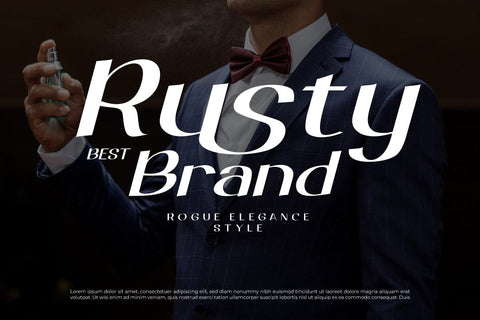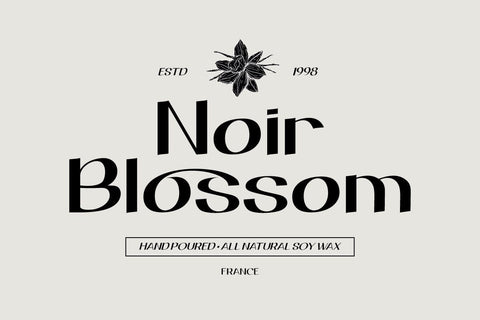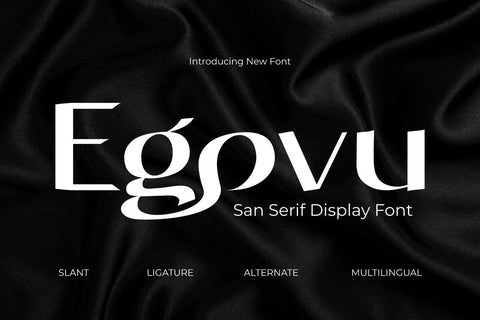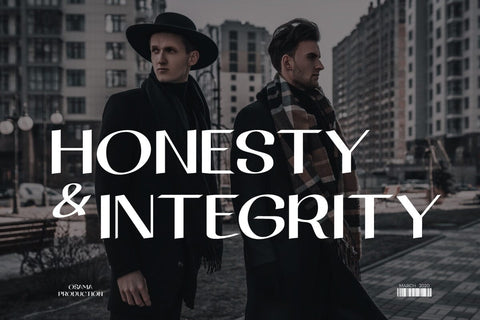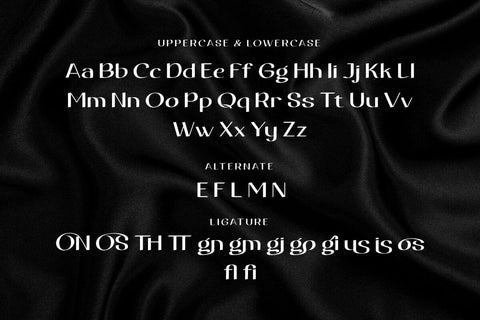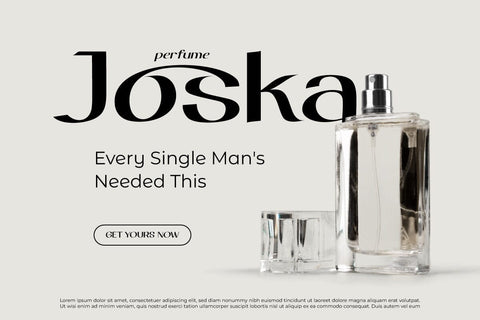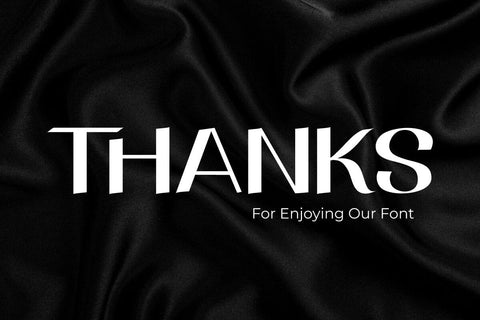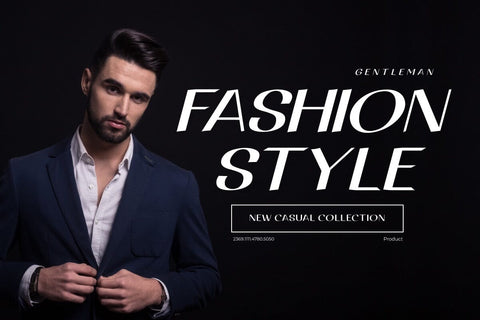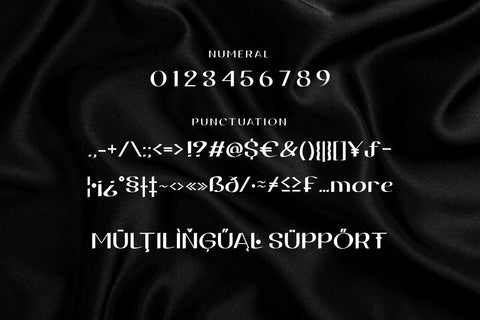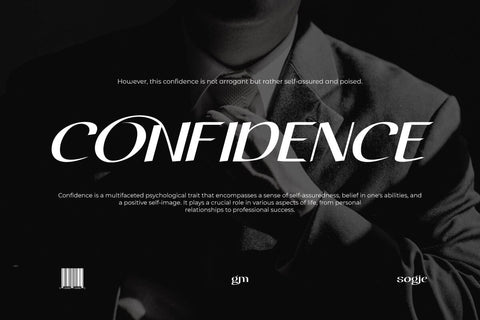
Egovu - Display Font
"Welcome to the distinctive world of typography! A genuinely distinctive sans-serif display typeface is Egovu. Egovu is the ideal option if you want a bold and distinctive style for your many different visual design tasks. What is so unique about Egovu? has incredible characteristics. Egovu allows you to be as creative as you like with its selection of ligatures and alternatives. Every project may simply be given a distinctive, personalized touch by using different letter combinations. Since we understand how crucial it is to communicate with a worldwide audience, Egovu supports numerous languages. Your message will be efficiently and clearly heard by individuals all across the world. Are you prepared to advance your design, then? Egovu is prepared to advance your initiatives. Egovu is ready to take your projects to the next level. Get this font now and see how Egovu turns every design into an unforgettable work of art.